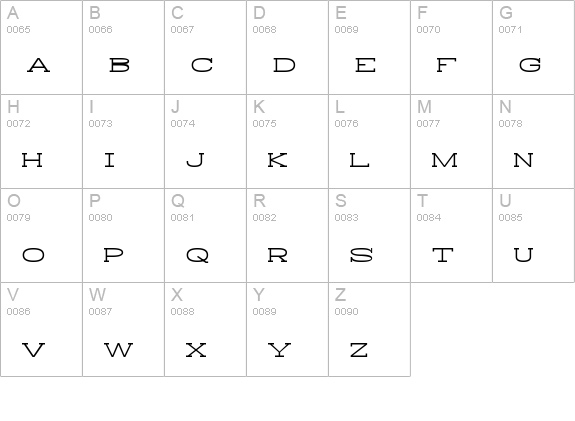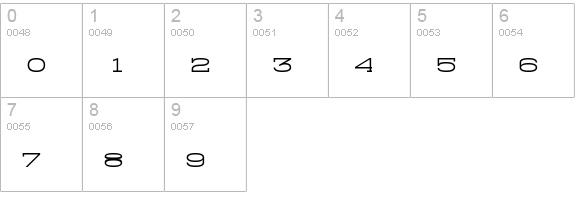
History Repeating Horizontal Font Details
History Repeating Horizontal font is a stunning typeface that evokes a sense of nostalgia and elegance. With its unique horizontal design, this font brings a touch of sophistication to any project. The intricate details and historical charm of History Repeating Horizontal make it a perfect choice for branding, editorial design, and more. This font is not only visually appealing but also versatile, suitable for a wide range of applications. Whether you're working on a vintage-inspired project or a modern design, History Repeating Horizontal adds a timeless touch to your work. Best of all, History Repeating Horizontal font is completely free to download at FontsMarket.com. Don't miss out on this opportunity to enhance your designs with this beautiful and unique typeface. Download History Repeating Horizontal today and let its historic flair elevate your creative projects to new heights.